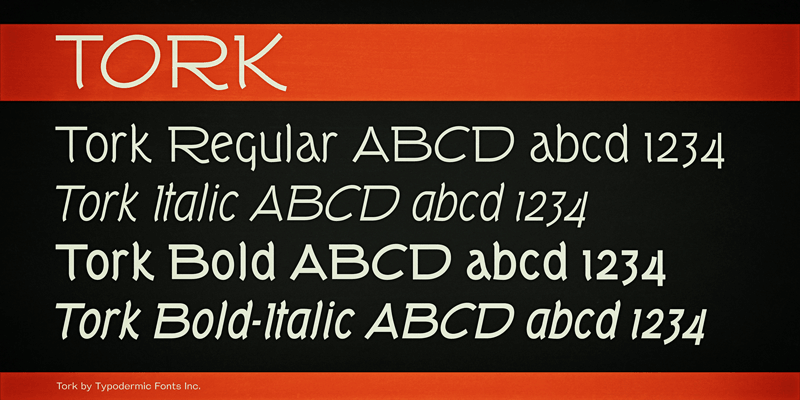
Font name: | Tork |
Tork takes the traditional sans serif, rips its sweater and flips it up on it’s good-for-nothing head, leaving it to wallow in a puddle of it own brokenhearted misery and despair. These fonts include a license that allows free commercial use: sometimes referred to as a desktop license. This allows you to install the fonts on a computer and use them to create posters, web graphics, game graphics, t-shirts, videos, signs, logos and more. Read the license agreement for details. If you'd like to embed these fonts in an app, ebook, on the web or anything that's not covered by the desktop license agreement, visit the link below. You'll find distributors who offer different types of licenses or you can contact me for help. http://typodermicfonts.com/tork/ |